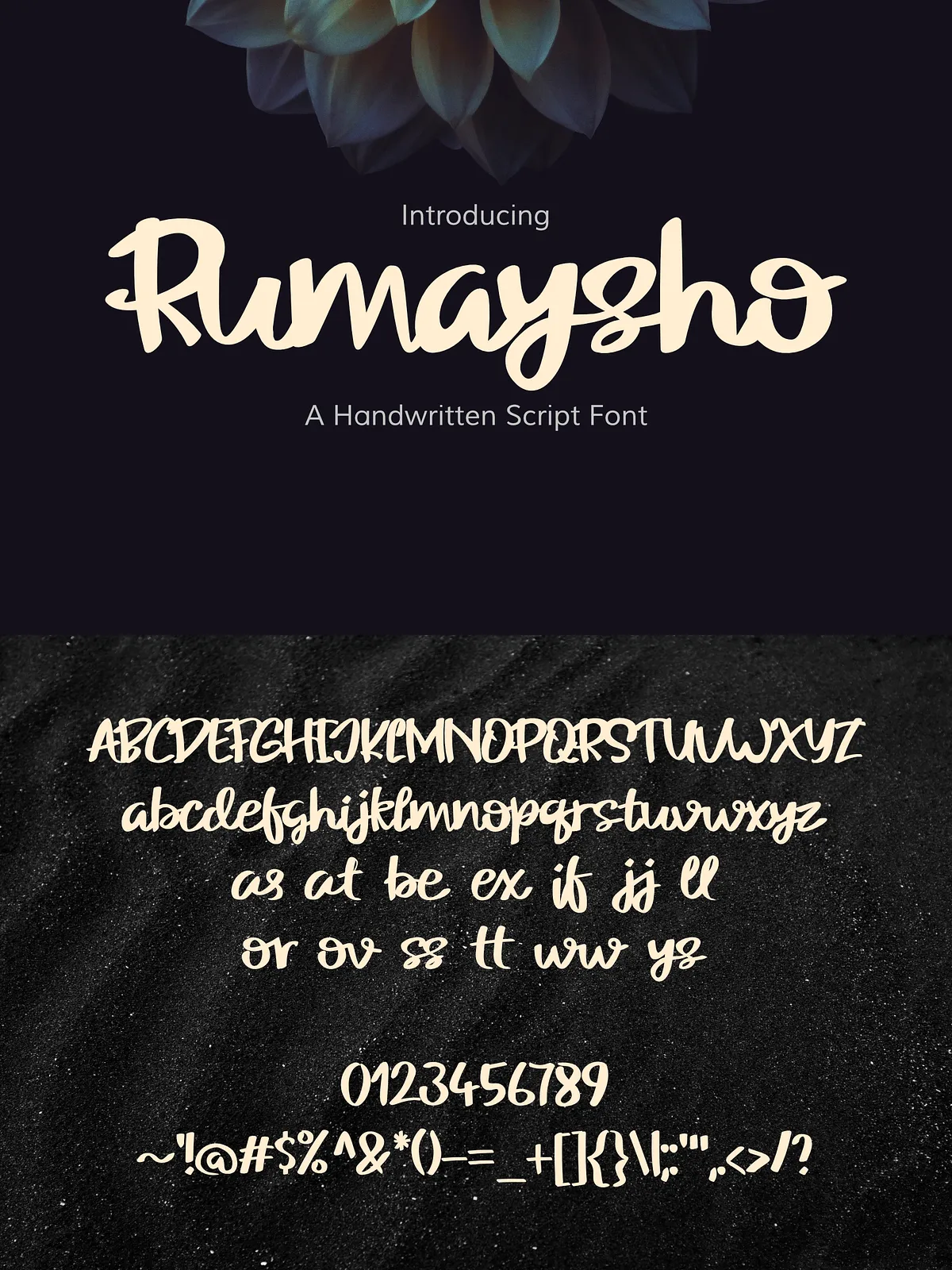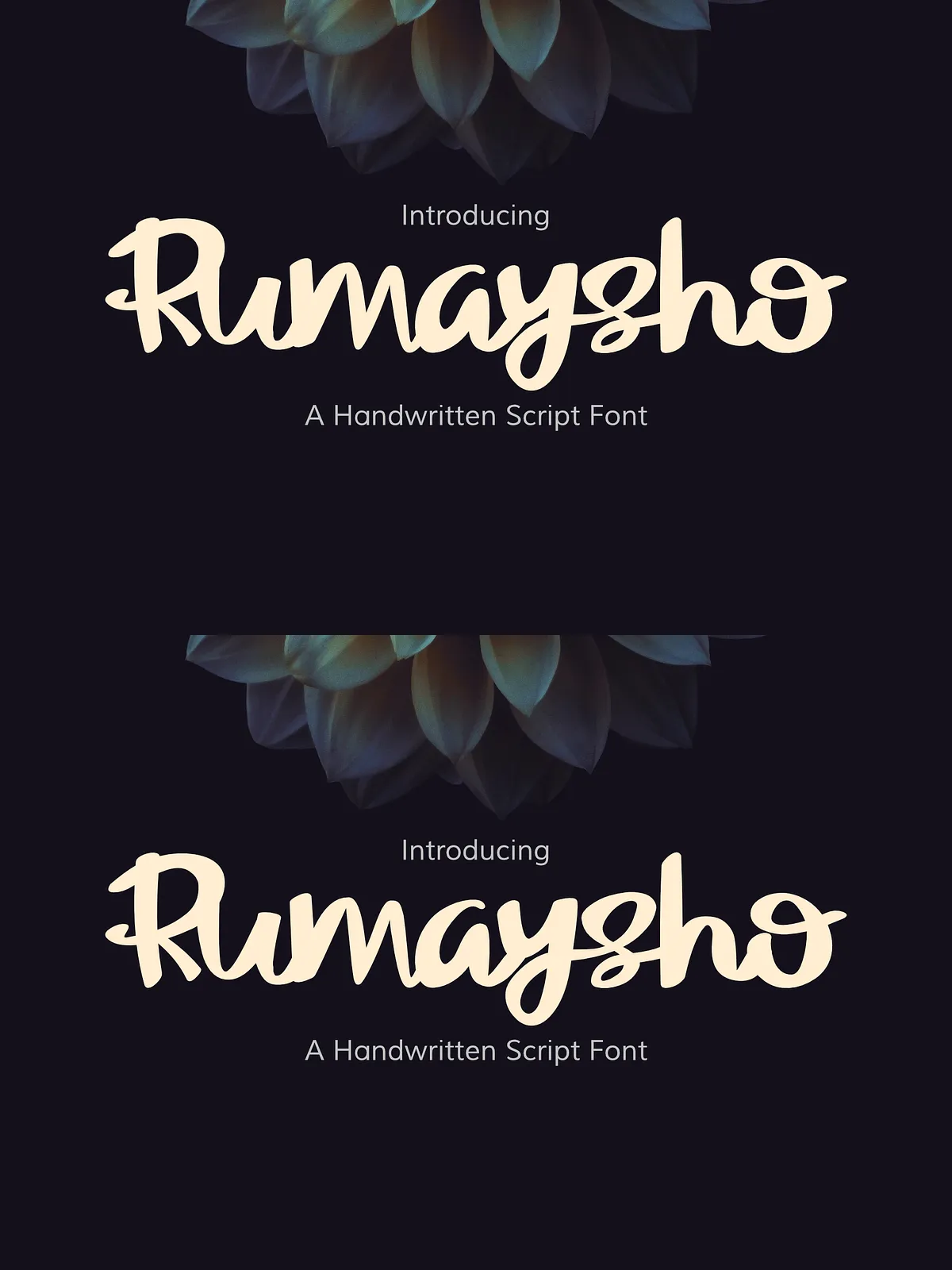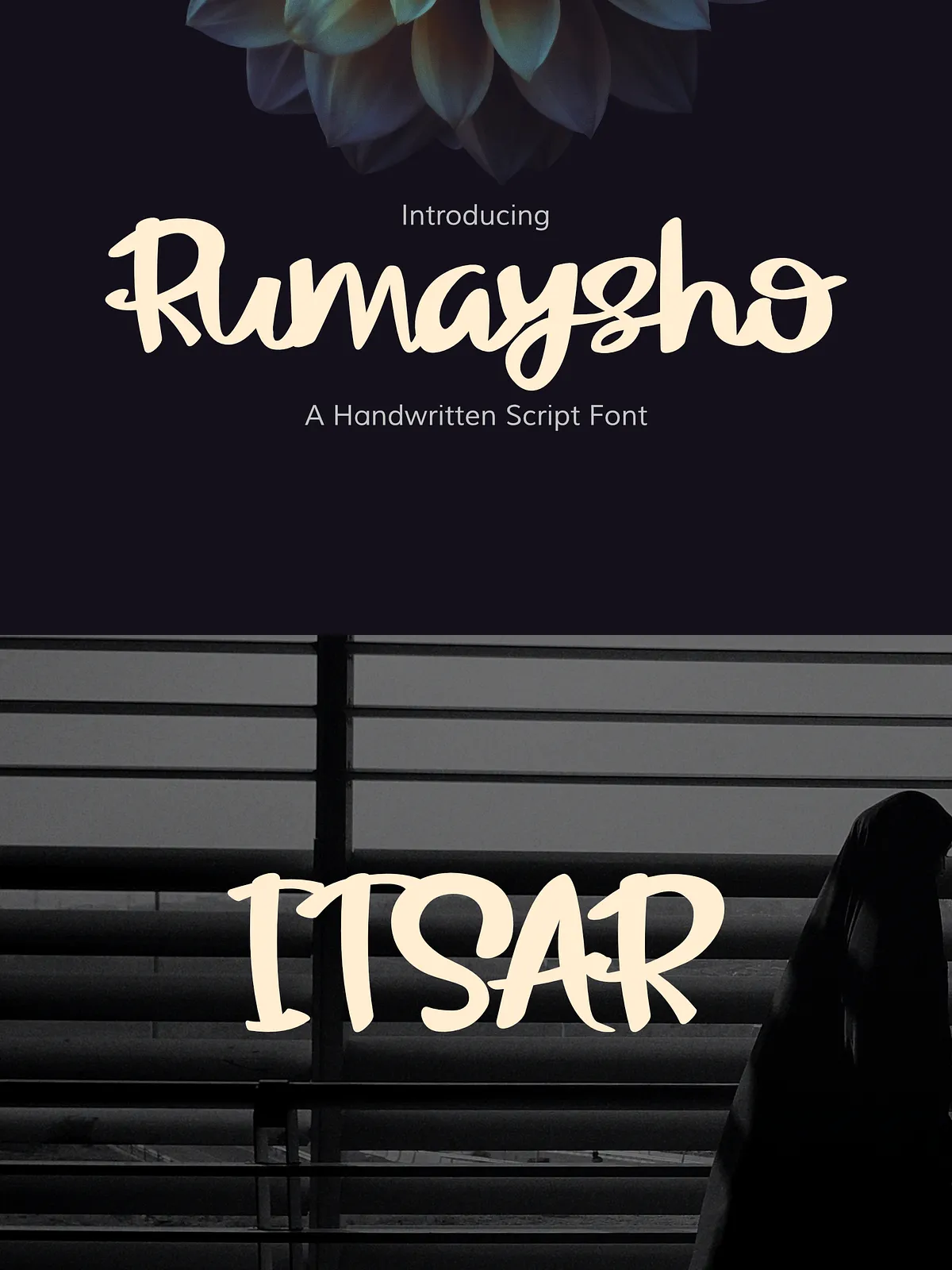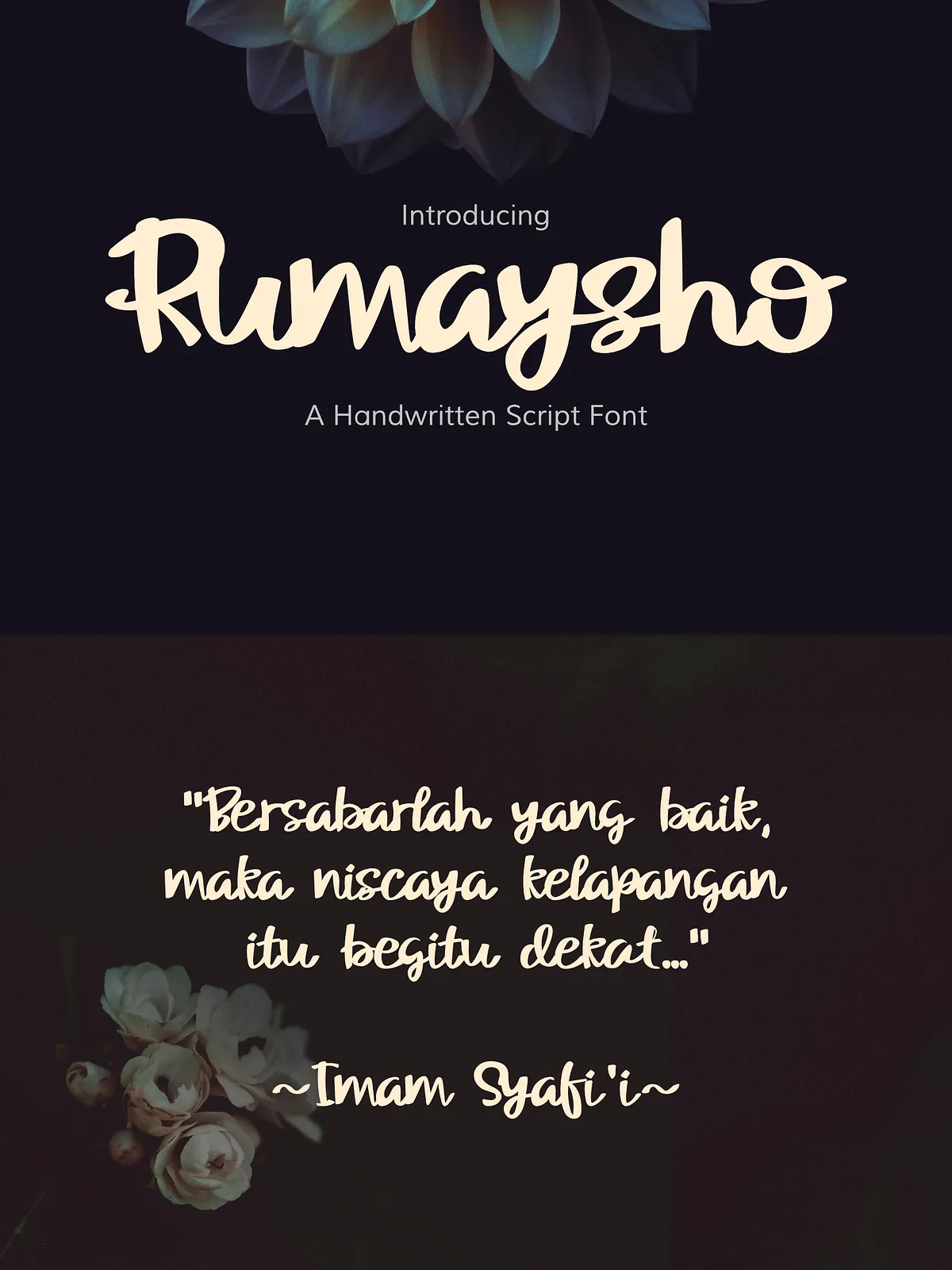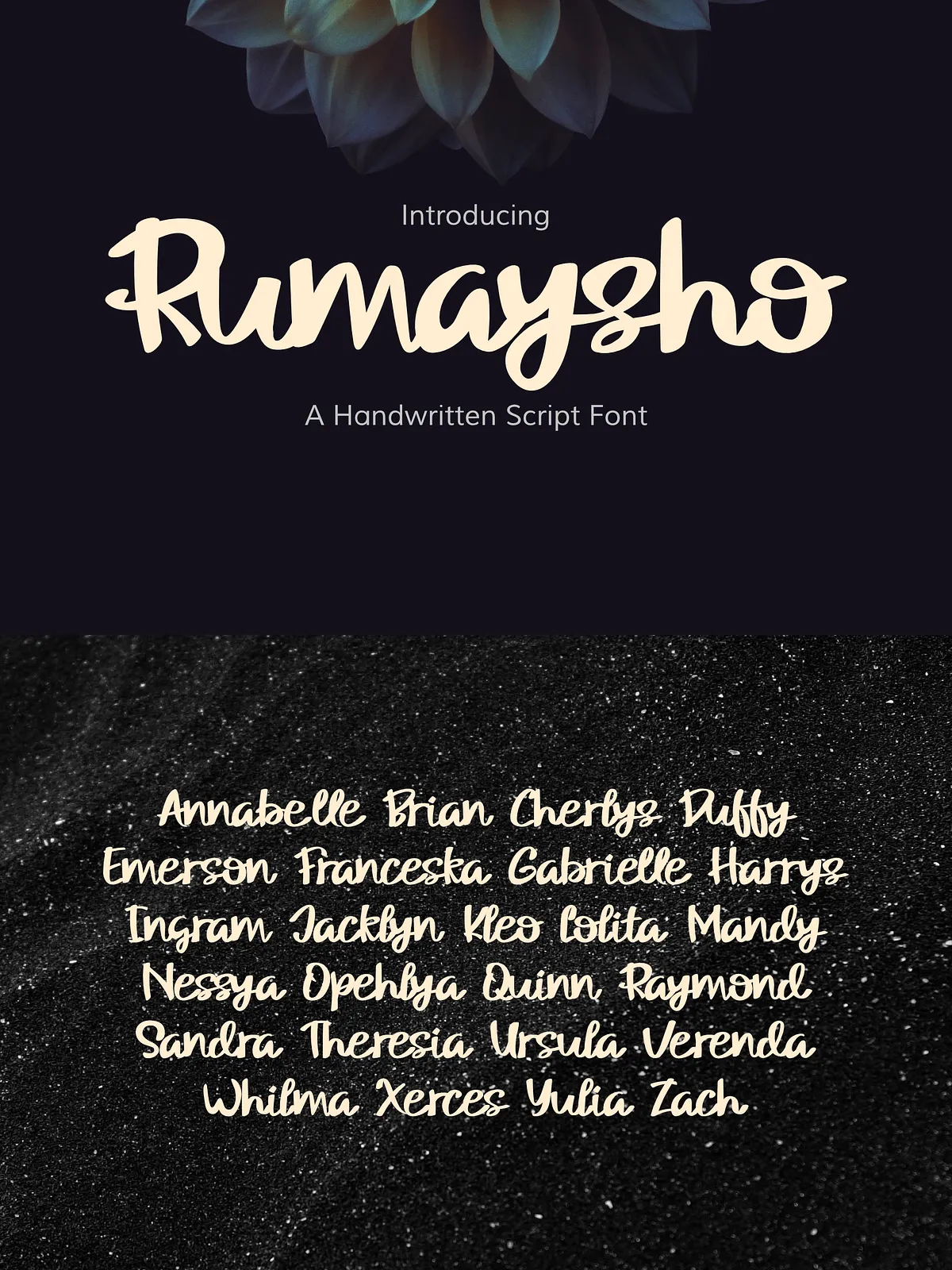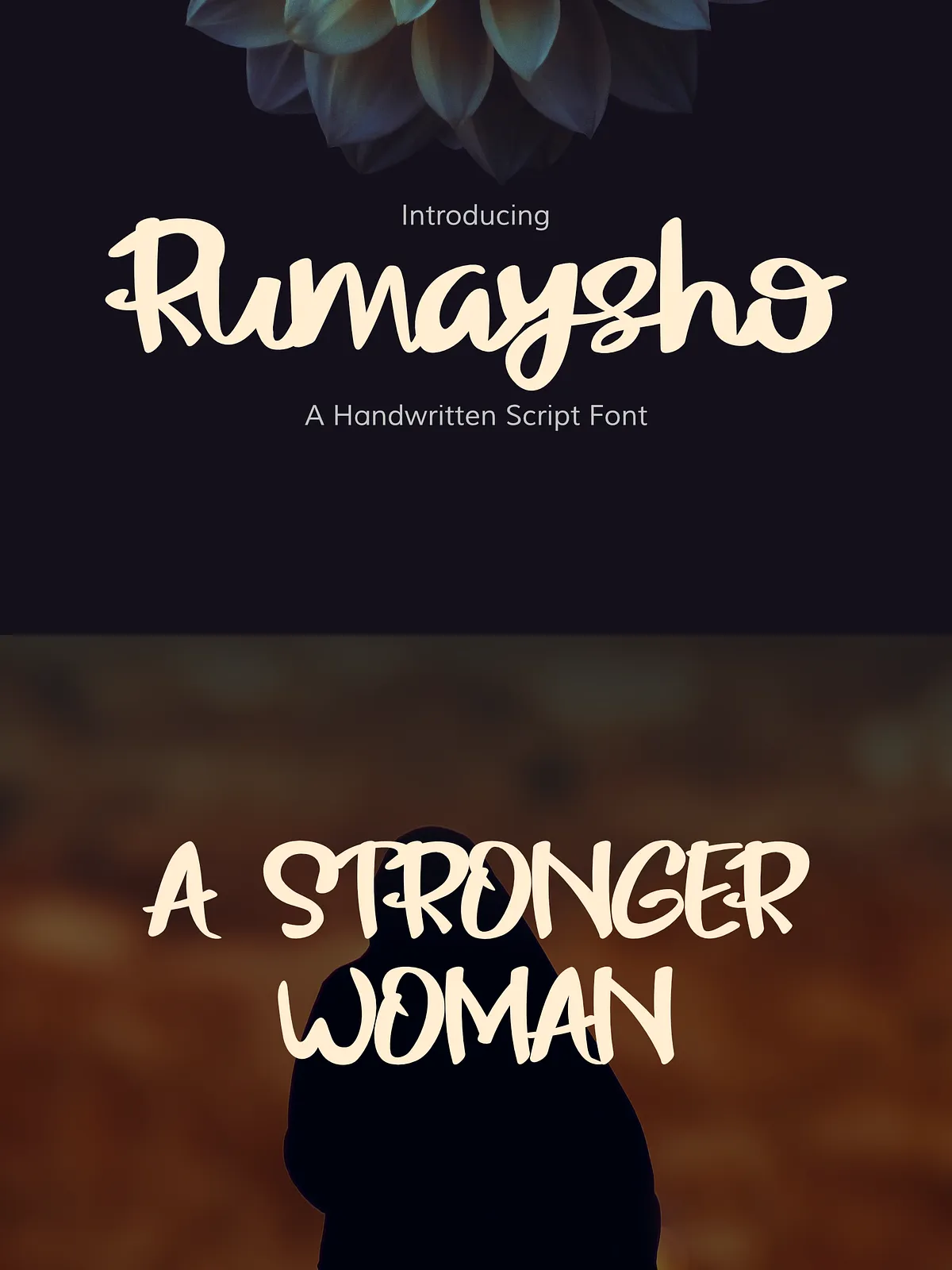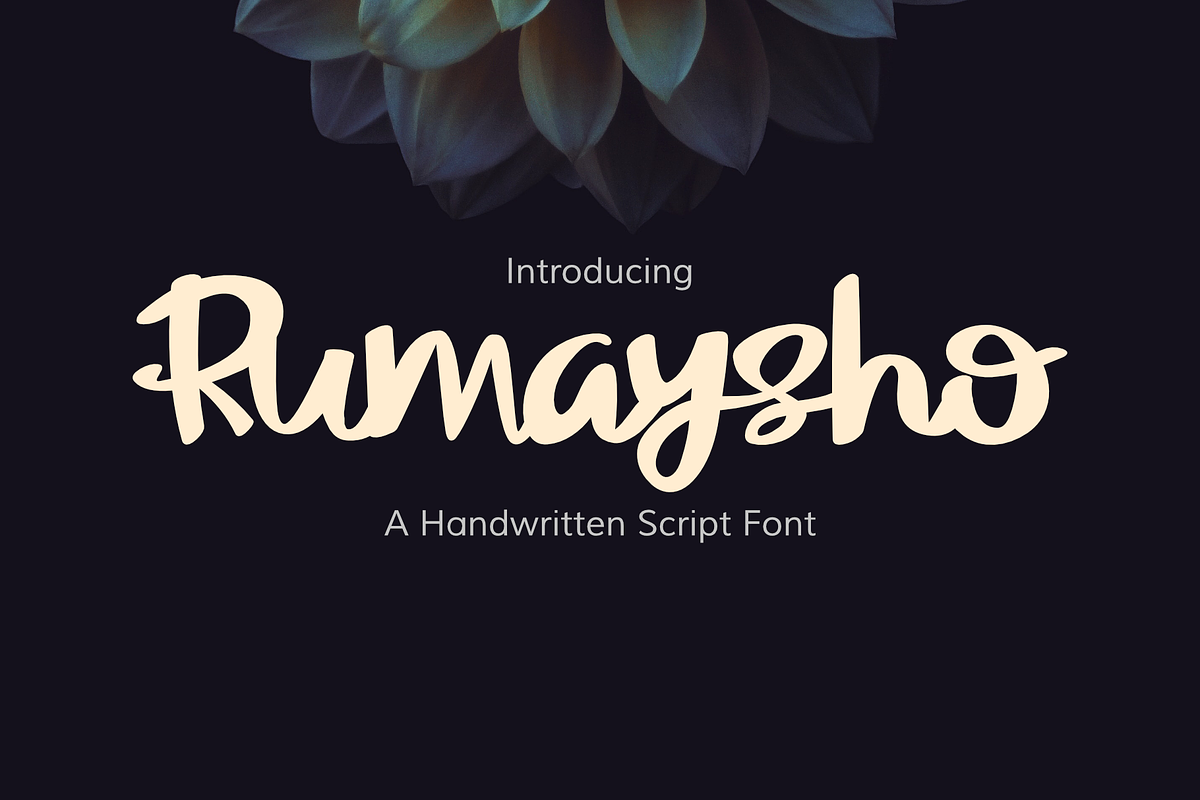
Rumaysho is a warm, approachable handwritten script font designed with a clean, rounded stroke to deliver personality and readability. It combines handcrafted charm with modern typographic reliability, making it a versatile choice for identity design, editorial headings, social media graphics, and packaging. Rumaysho includes OpenType features such as contextual ligatures that add organic flow and a natural feel to your typography—especially useful for logo treatments and headlines that need a human touch.
- Clean rounded strokes: Smooth terminals and soft curves create a friendly, contemporary script voice.
- OpenType ligatures: Natural letter connections and contextual alternates that improve flow and avoid mechanical joins.
- Versatile weight: Balanced strokes maintain legibility in both headline and short paragraph settings.
- Multilingual support: Includes an extended Latin character set suitable for many Western languages.
Ideal Uses
Branding & Logo Design
Apply Rumaysho to logos and wordmarks when you want a handcrafted, authentic appearance. The ligatures and natural stroke rhythm allow you to create distinctive marks that feel bespoke without heavy customization.
Social Media & Marketing
Use Rumaysho for eye-catching Instagram headers, Facebook covers, and promotional banners. Its rounded shapes translate well on-screen and retain personality even at smaller display sizes.
Titles & Editorial
Choose Rumaysho for movie titles, book covers, chapter headings, and editorial pull quotes. The font’s friendly tone fits lifestyle, travel, food, and personal-narrative content especially well.
Short and Long Text
While Rumaysho excels in display contexts, it also suits short paragraphs and secondary text when paired with a neutral sans or a restrained serif. Its balanced letterforms prevent fatigue across modest blocks of copy.
Design & Pairing Tips
Pairing Recommendations
Pair Rumaysho with a clean geometric sans (for instance, a neutral grotesk) to maintain hierarchy and improve readability for body text. For a more editorial look, combine it with a low-contrast serif that complements rather than competes with Rumaysho’s rounded rhythm.
Treatment Suggestions
Use moderate letter spacing when applying Rumaysho to long strings to preserve legibility. Apply subtle texture or shadow effects for vintage or tactile projects, and opt for high-contrast color combinations when you need maximum headline impact.